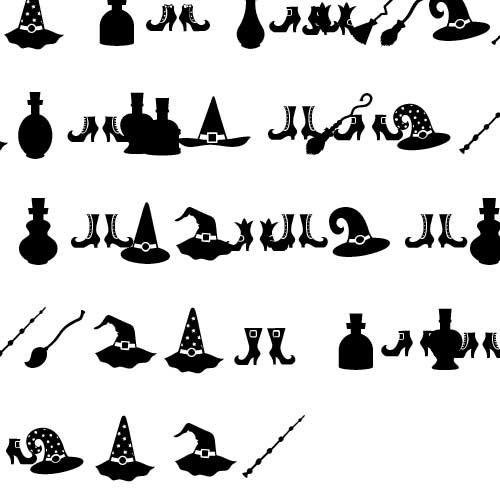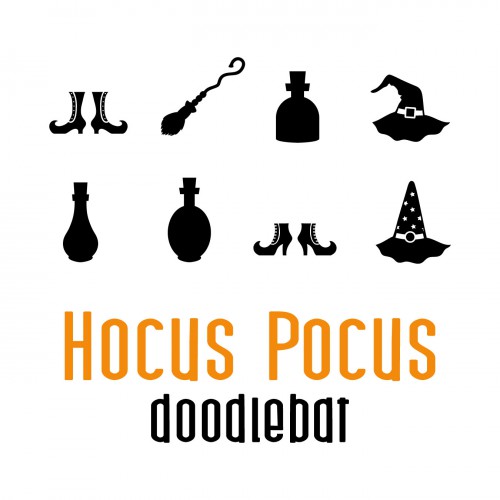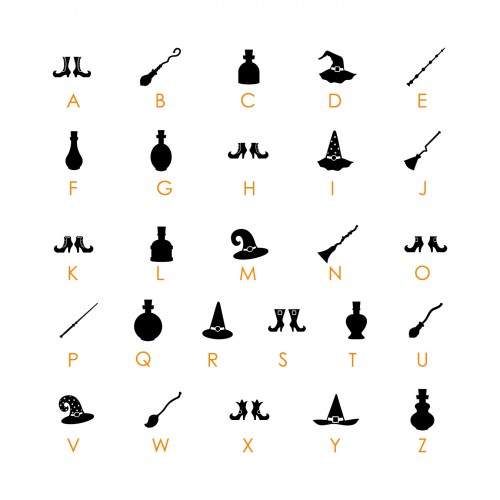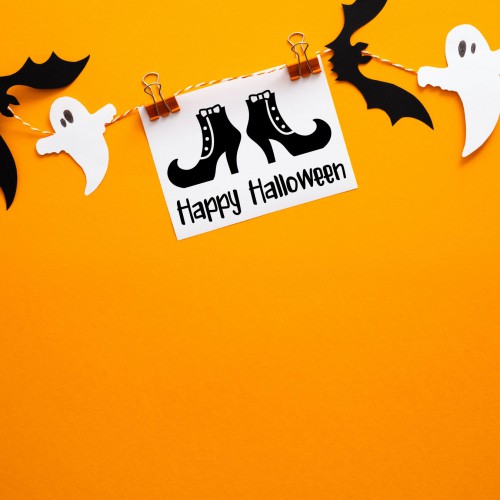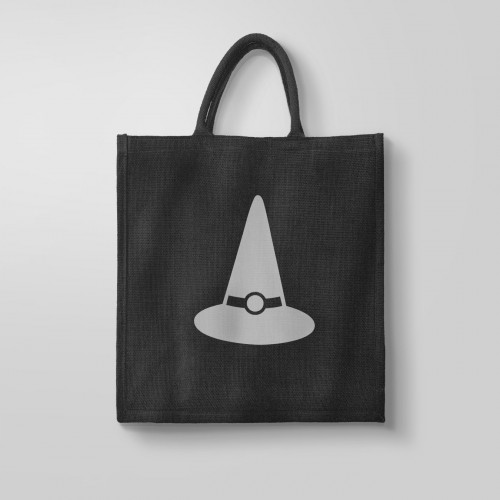
DB Hocus Pocus - DB
This adorable doodlebat features fun witch hats, boots, brooms and potions. Perfect for Halloween, parties, home decor, card making, planner stickers, scrap booking and more!